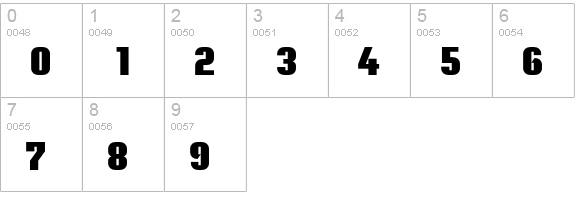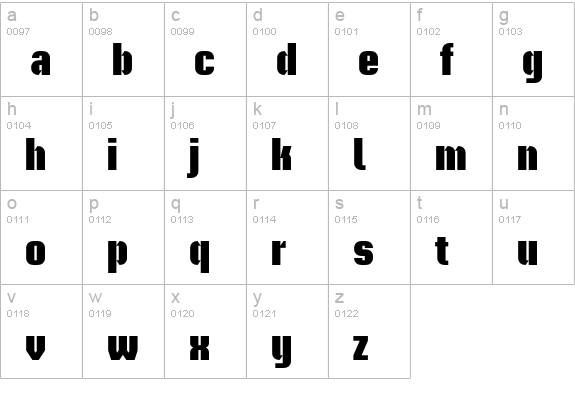
Briem Akademi Std Black is a maximum-weight, dramatic variant in the Briem typeface family \xE2\x80\x94 well suited to maximum-impact headlines, posters, and packaging.
Briem Akademi Std Black is a bold and striking font that exudes elegance and sophistication. With its clean lines and modern aesthetic, this typeface is perfect for creating eye-catching headlines and titles. The thick strokes of Briem Akademi Std Black make it ideal for making a strong statement in any design project. What makes Briem Akademi Std Black even more appealing is that it is available for free download at FontsMarket.com. This means that you can easily access this high-quality font without any cost, making it a valuable addition to your font collection. Whether you're designing a poster, logo, or website, Briem Akademi Std Black will help you achieve a professional and polished look. Download it today and elevate your design projects with this versatile and impactful font.